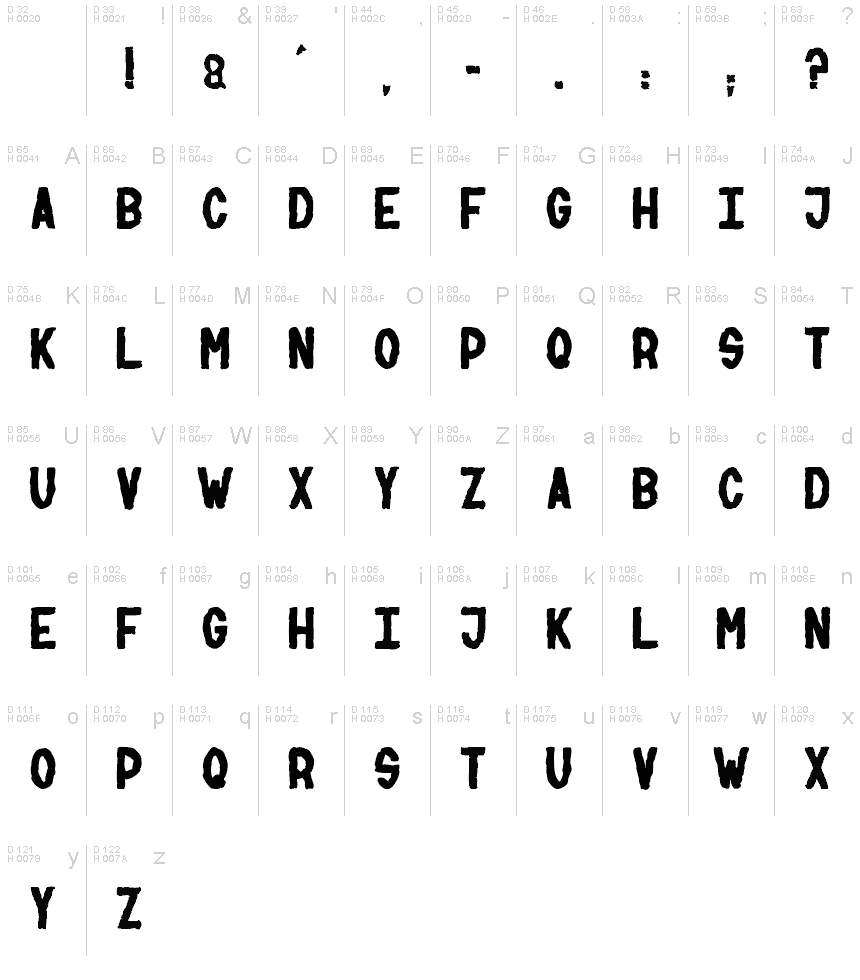
NUMBER two
Number Two, designed by dcoxy Medina Gregory, is a display font that truly stands out in the world of typography. With its unique eroded style, this bold and condensed font offers a distinct and eye-catching aesthetic that is perfect for creative projects.
Whether you're designing a logo, poster, or website, Number Two's striking appearance will captivate your audience and make your message unforgettable. Its eroded texture adds an edgy and raw quality to any design, making it particularly suitable for projects that aim to convey strength and grit. The bold weight ensures maximum impact while the condensed width allows for efficient use of space without compromising legibility.
Embrace the power of Number Two and elevate your creative endeavors to new heights with this exceptional font.